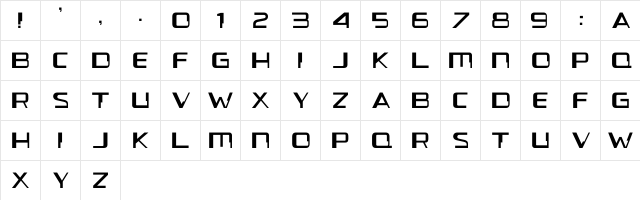
Voya Nui GF
Design Context for Voya Nui Typeface
Voya Nui takes a measured approach to typography — its balanced proportions and neutral character make it a reliable workhorse for both digital and print work.